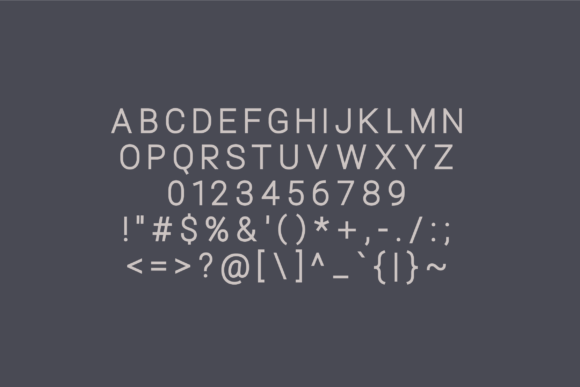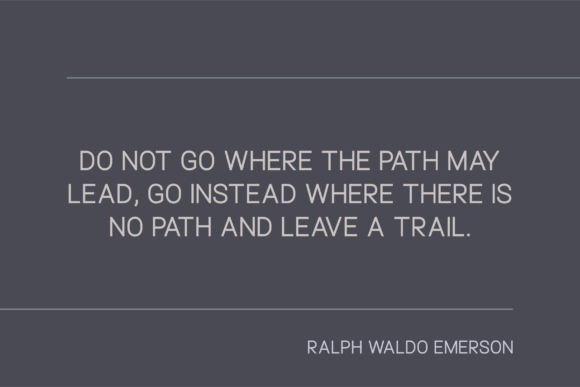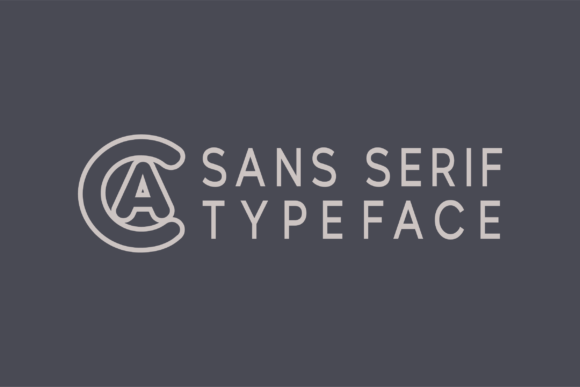
Introduction to Headshake Font
Unveiling Headshake, a contemporary yet elegant sans serif font exuding class and sophistication.
This timeless font seizes the potential of sans serif typography with its thoughtfully designed upper characters, coupled with the full span of numerals from 0 to 9 and an assortment of punctuation marks and symbols A quintessential all-rounder, Headshake adds a touch of finesse to everything from logos and wedding invitations to quotes, print advertisements, and even magazines.
Key Features of Headshake Font
Why Choose Headshake Font?